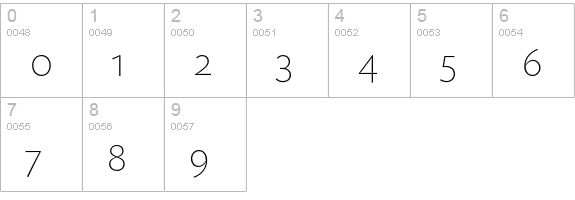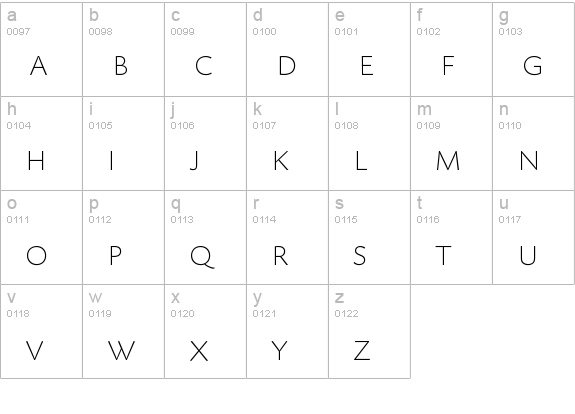
Today Sans Serif Caps Extra Light Font Details
Today Sans Serif Caps Extra Light is a refined, elegant variant in the Today typeface family \xE2\x80\x94 well suited to elegant body text, refined sub-headings, and luxury branding.
Introducing Today Sans Serif Caps Extra Light, a sleek and modern font that exudes elegance and sophistication. With its clean lines and minimalist design, this typeface is perfect for adding a touch of contemporary flair to your projects. Today Sans Serif Caps Extra Light offers a unique blend of simplicity and functionality, making it suitable for a wide range of applications. Whether you're designing a logo, creating a website, or crafting an eye-catching advertisement, this font will effortlessly elevate your work to new heights. The thin strokes and generous spacing of Today Sans Serif Caps Extra Light create a sense of openness and clarity, ensuring that every letter is easily legible and visually striking. Its versatile nature allows it to be equally effective in both large headlines and smaller body text, ensuring consistency and coherence throughout your design. One of the most exciting aspects of Today Sans Serif Caps Extra Light is that it is available for free! Yes, you read that right. This exceptional font can be freely downloaded at FontsMarket.com. This means that you can enjoy the benefits of this remarkable typeface without any financial burden. So why wait? Elevate your design game and bring a touch of modernity to your projects with Today Sans Serif Caps Extra Light. Download it for free at FontsMarket.com and let your creativity soar to new heights.